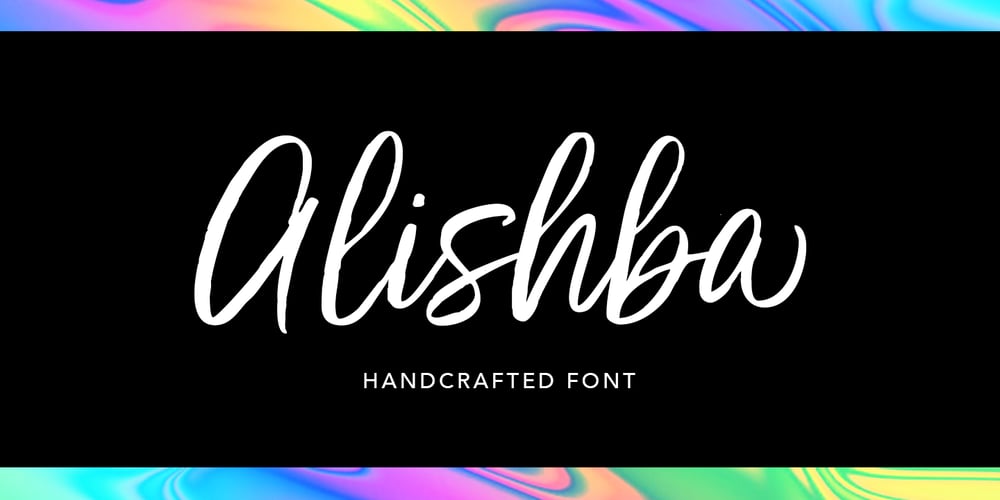
Alishba Font Family was designed by Nanda Type and published by Nandatype Studio. Alishba contains 3 styles and family package options. Alishba is a handcrafted font with a regular and bold vibe. It was handmade with an irregular baseline and is equipped with alternatives and ligatures. It can be used to add a natural touch to your stationery designs, quotes, branding, logos, greeting cards, t-shirts, packaging designs, posters and more.